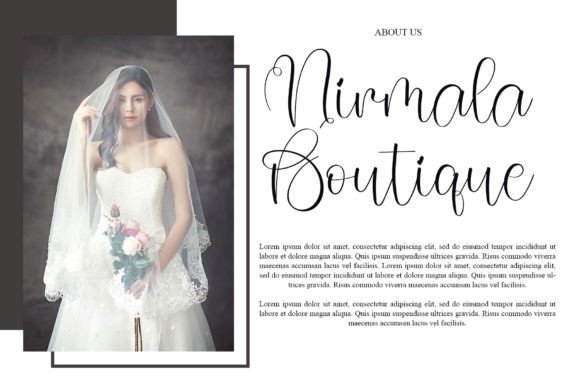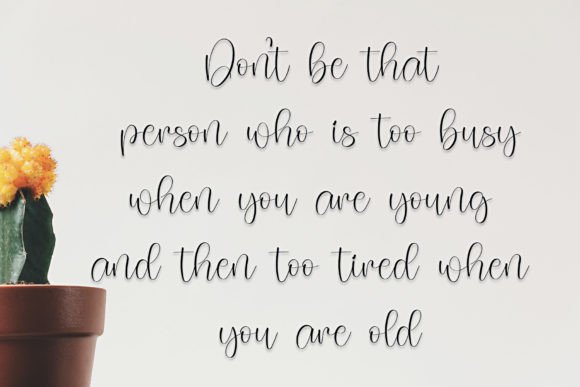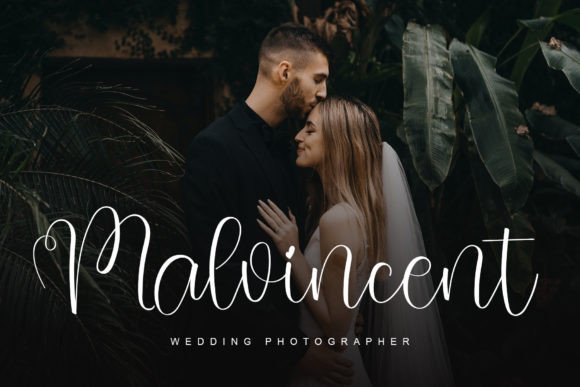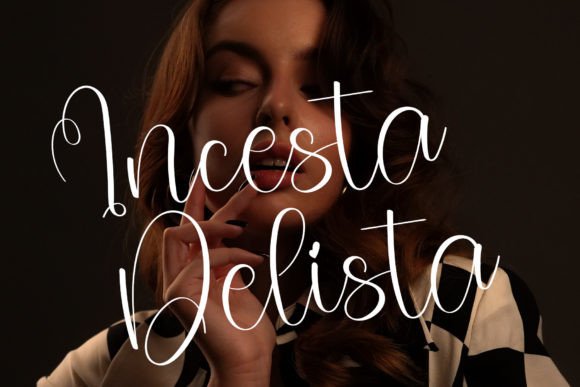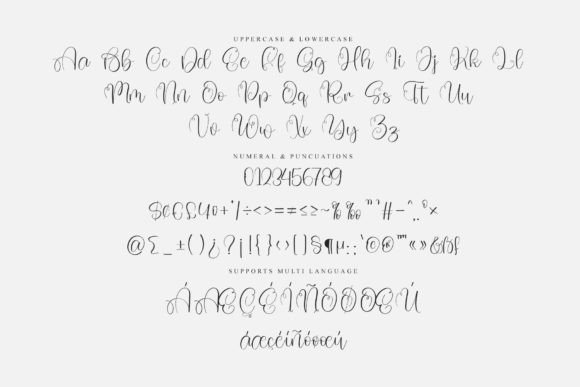
Introduction to Patricks Font
As designers, we’ve all been there – staring at a blank canvas, trying to bring our creative vision to life. The right font can make all the difference, elevating our work from ordinary to extraordinary. For me, that font is Patricks Font – a stylish handwritten font that exudes a contemporary atmosphere and timeless charm.
With its impeccable form and balanced, varied design, Patricks Font is a design resource that can take our creative projects to the next level. Whether we’re working on a logo, a brochure, or a social media campaign, this high-quality font adds a touch of sophistication and elegance that’s hard to replicate. And the best part? Patricks Font can be used with a transparent background, giving us the flexibility to create stunning designs that pop.
Key Features of Patricks Font
- Unique, hand-drawn design with a transparent background, ideal for creative projects that require a personal touch.
- High-quality font with a clean and modern aesthetic, perfect for designers looking for a free design resource.
- Designed with a high resolution (300 DPI) for use in large-scale designs, such as billboards and posters.
- Can be easily customized to fit the needs of your creative project, with a wide range of font sizes and styles available.
- Perfect for designers who want a high-quality, unique font that stands out from the crowd, without breaking the bank.
Honest Review: Patricks Font
As a designer, I’m always on the lookout for high-quality design resources that can elevate my creative projects. Recently, I had the chance to try out Patricks Font, and here’s my honest review.
What works well: ✨ I was impressed by the sleek and modern design of Patricks Font. It’s perfect for creating a clean and professional look in your projects. The font also comes with a transparent background, which makes it easy to use as a design element. Additionally, it’s free to download, which is a definite bonus.
What doesn’t work so well: ⚠️ While Patricks Font is a great addition to any design project, it’s not ideal for projects that require a wide range of font styles. The font is a bit limited in terms of its versatility, and it may not be suitable for more complex designs.
Overall impression: Patricks Font is a solid choice for designers who are looking for a high-quality, modern font to add to their design resource collection. It’s perfect for simple projects or as an accent font in more complex designs. Just be aware of its limitations, and you’ll be all set.
- Perfect for: simple designs, clean and professional look
- Not ideal for: complex designs, projects requiring multiple font styles
- Key features: transparent background, modern design, free download
Patricks Font is a high-quality design resource that can be used in a variety of creative projects, including:
1. Social media graphics and ads.
2. Business cards and marketing materials.
3. Web design and development.
4. Print design and publishing.
For the best results, use Patricks Font with a transparent background and adjust the font size and style to suit your design project.